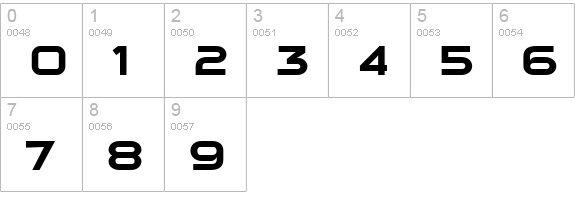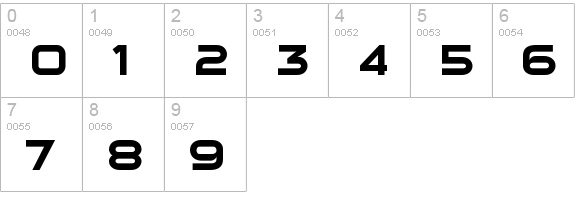
Sui Generis font is a unique and modern typeface that exudes sophistication and elegance. With its sleek lines and stylish curves, this font is perfect for adding a touch of class to any design project. Whether you're creating a logo, poster, or website, Sui Generis will make your text stand out. The best part? Sui Generis font is available for free download at FontsMarket.com. You can easily access this stunning font and incorporate it into your creative endeavors without spending a dime. Don't miss out on the opportunity to elevate your designs with the exquisite Sui Generis font – download it today and let your creativity shine!